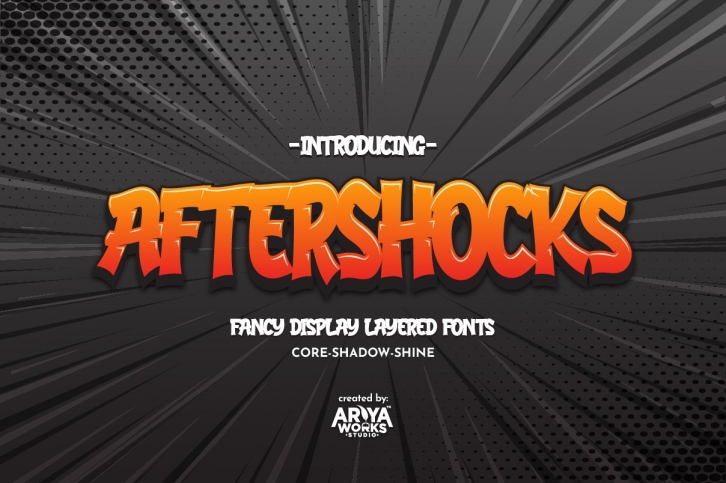
Aftershocks is a beautiful font that was designed by Ariya Works. It's a great choice for designers and creatives who need such a font. It was released on February 23, 2021 and the file size is 7.35 MB. Aftershocks may give a more youthful, expressive and casual look to your project. It is a very beautiful, refined, elegant, and high-quality font.